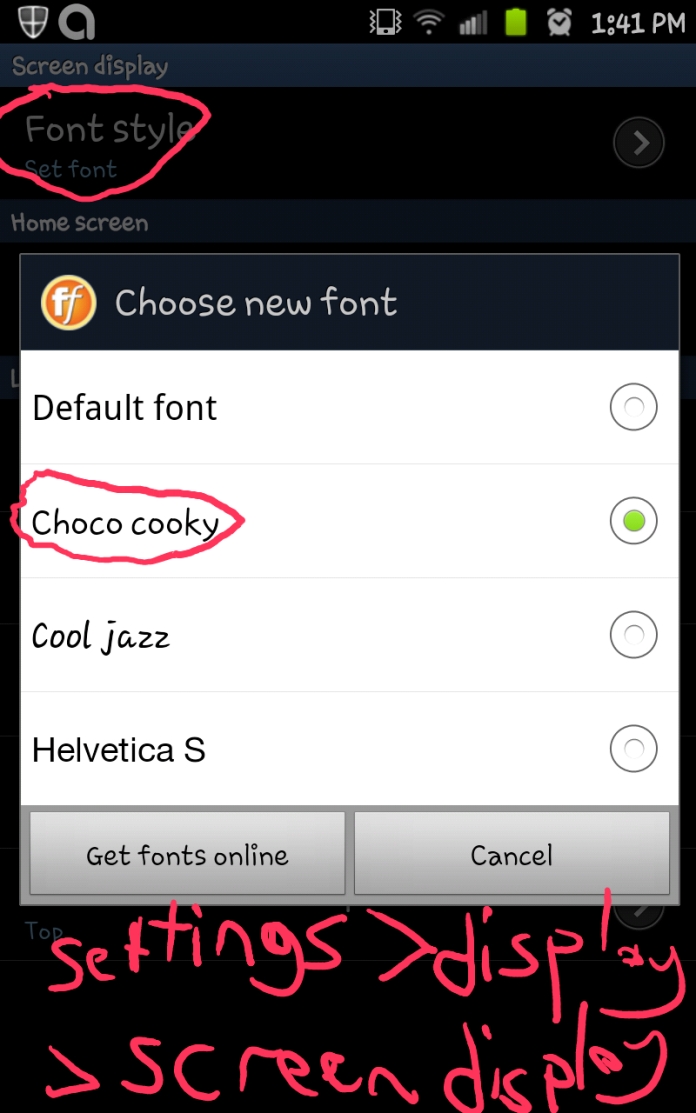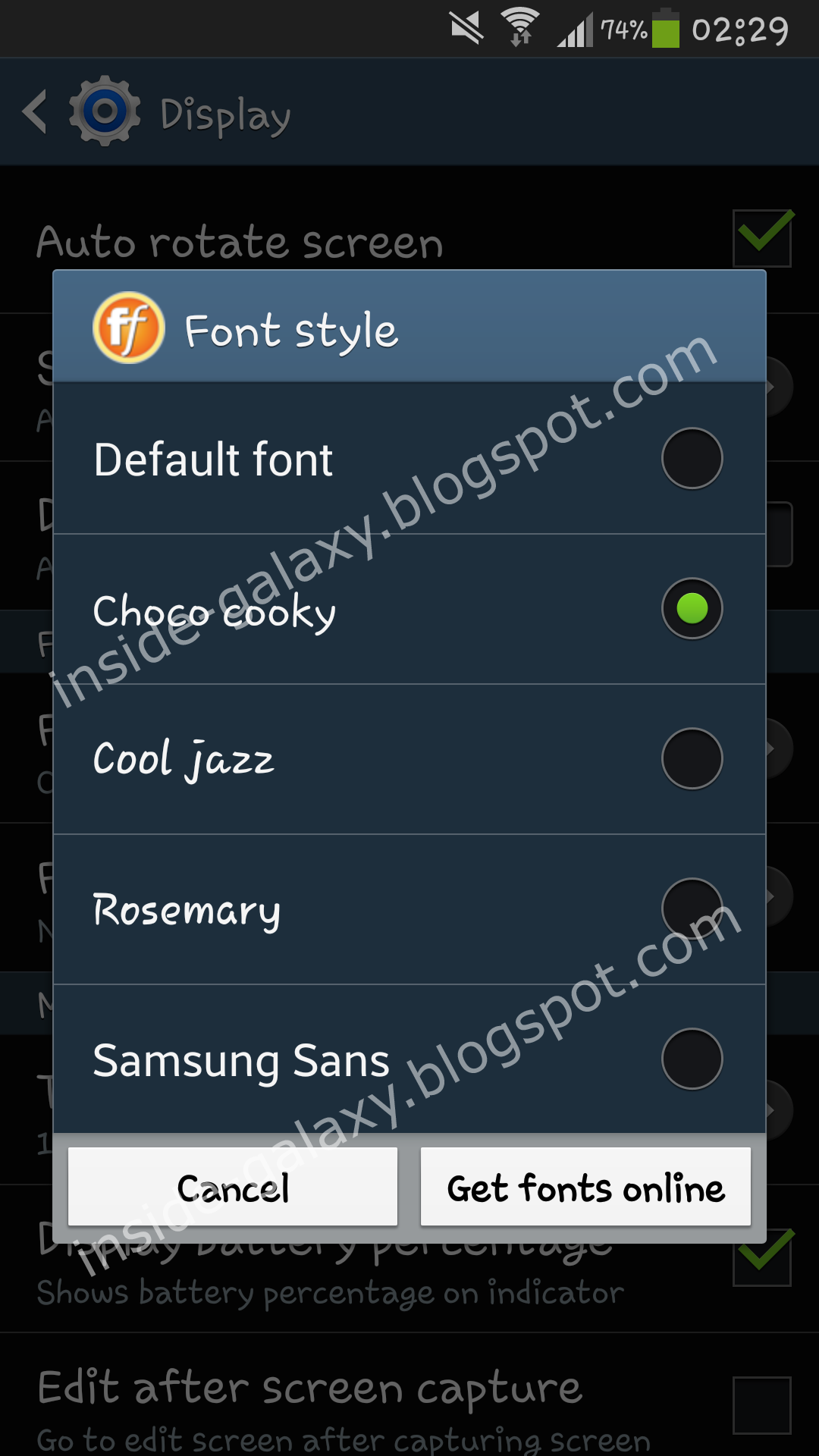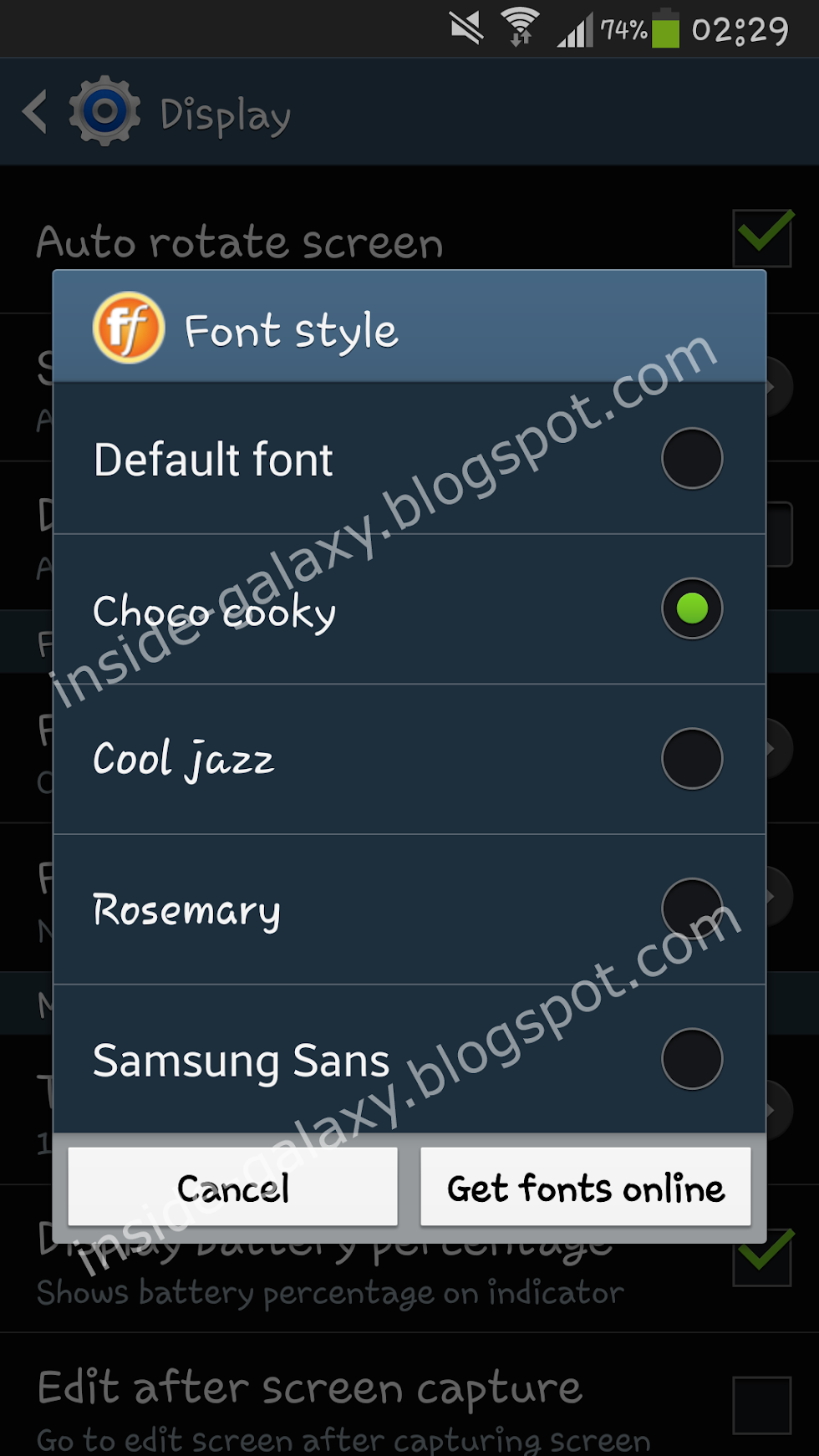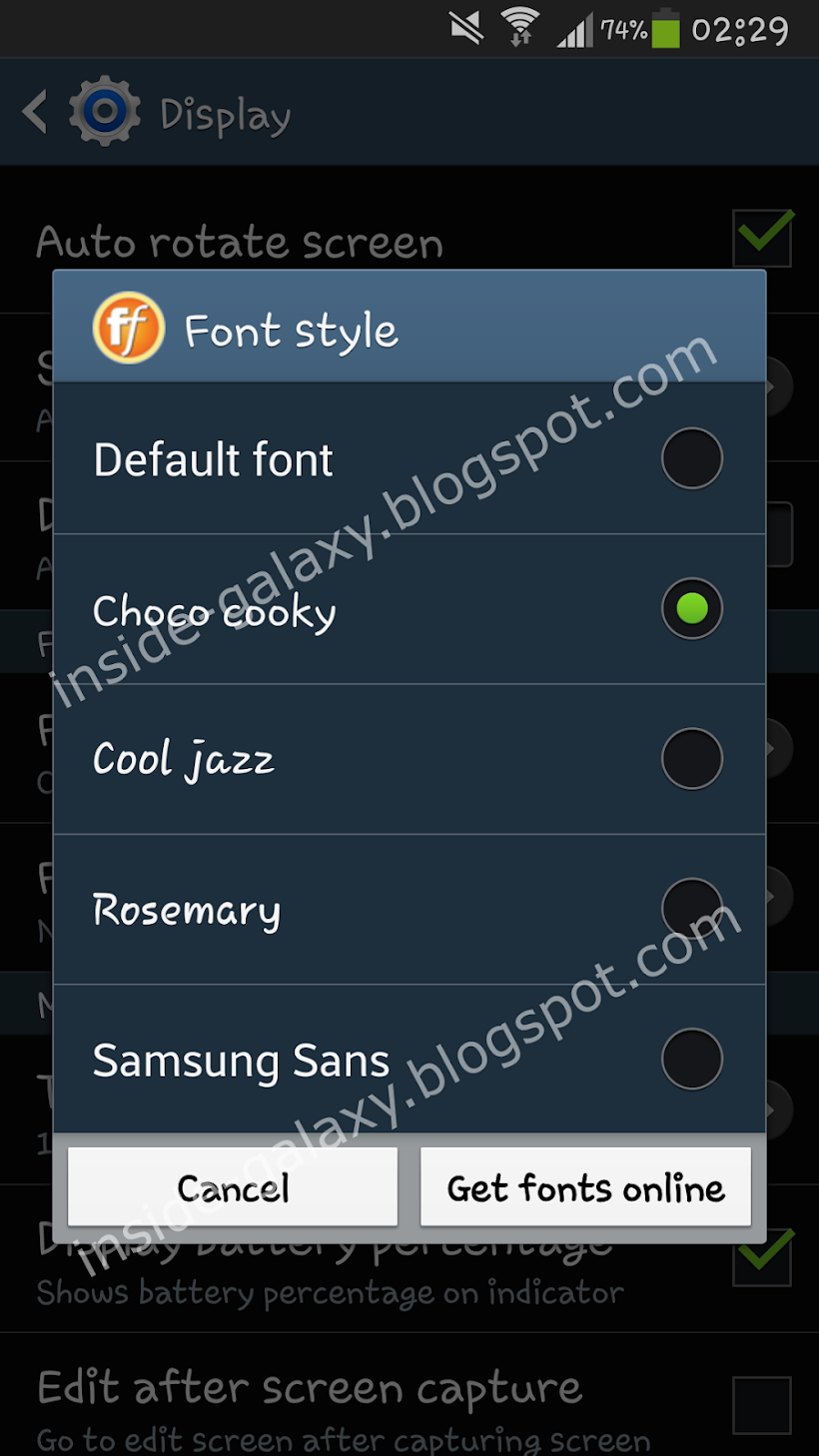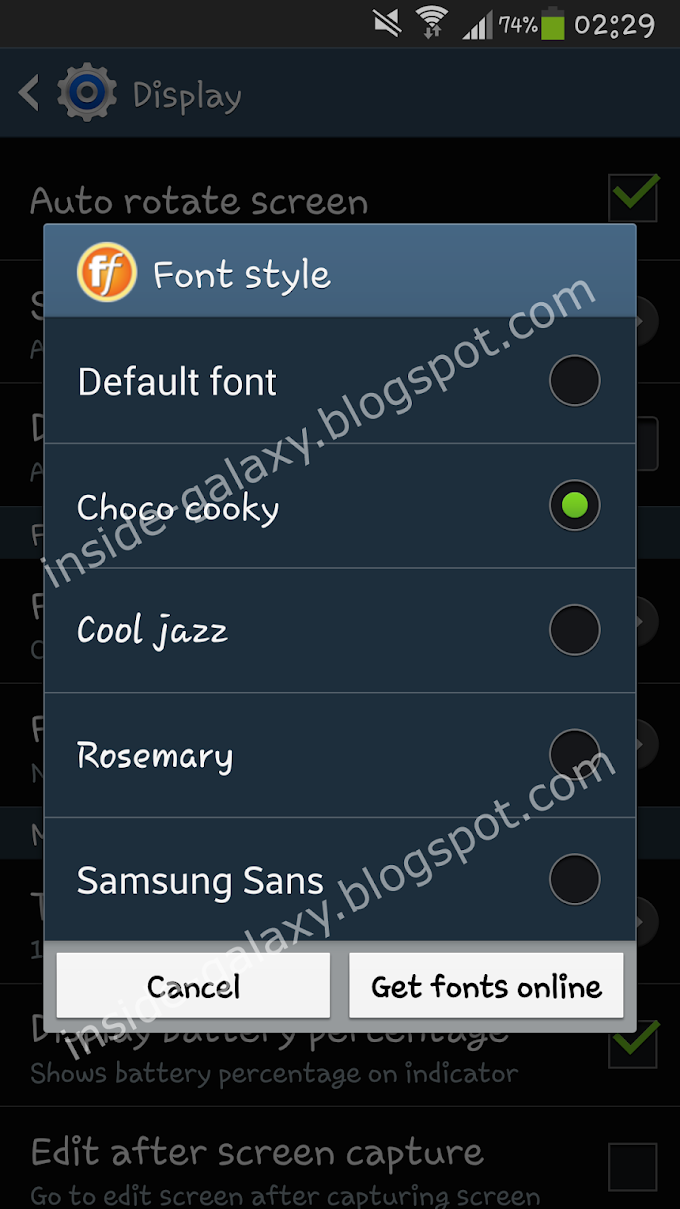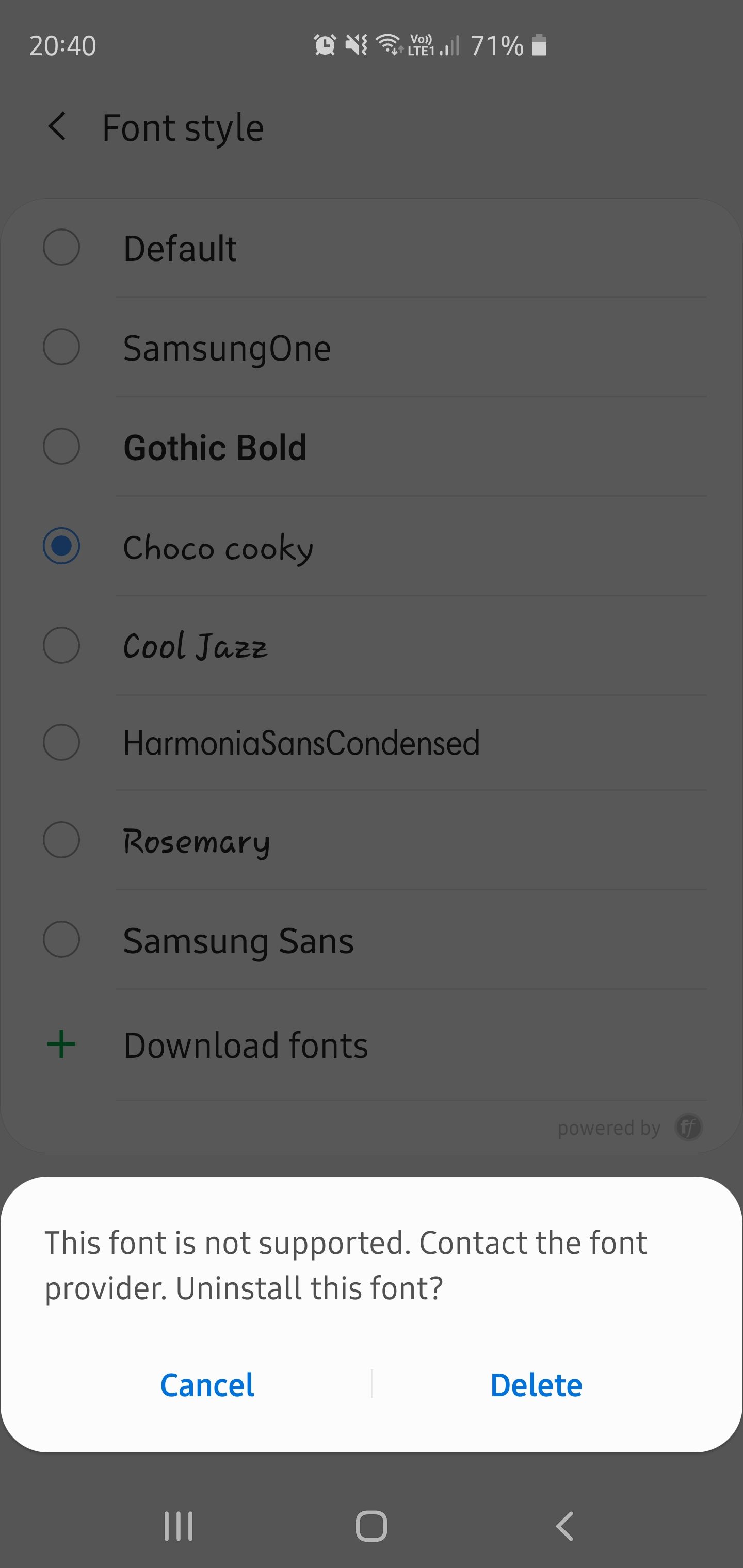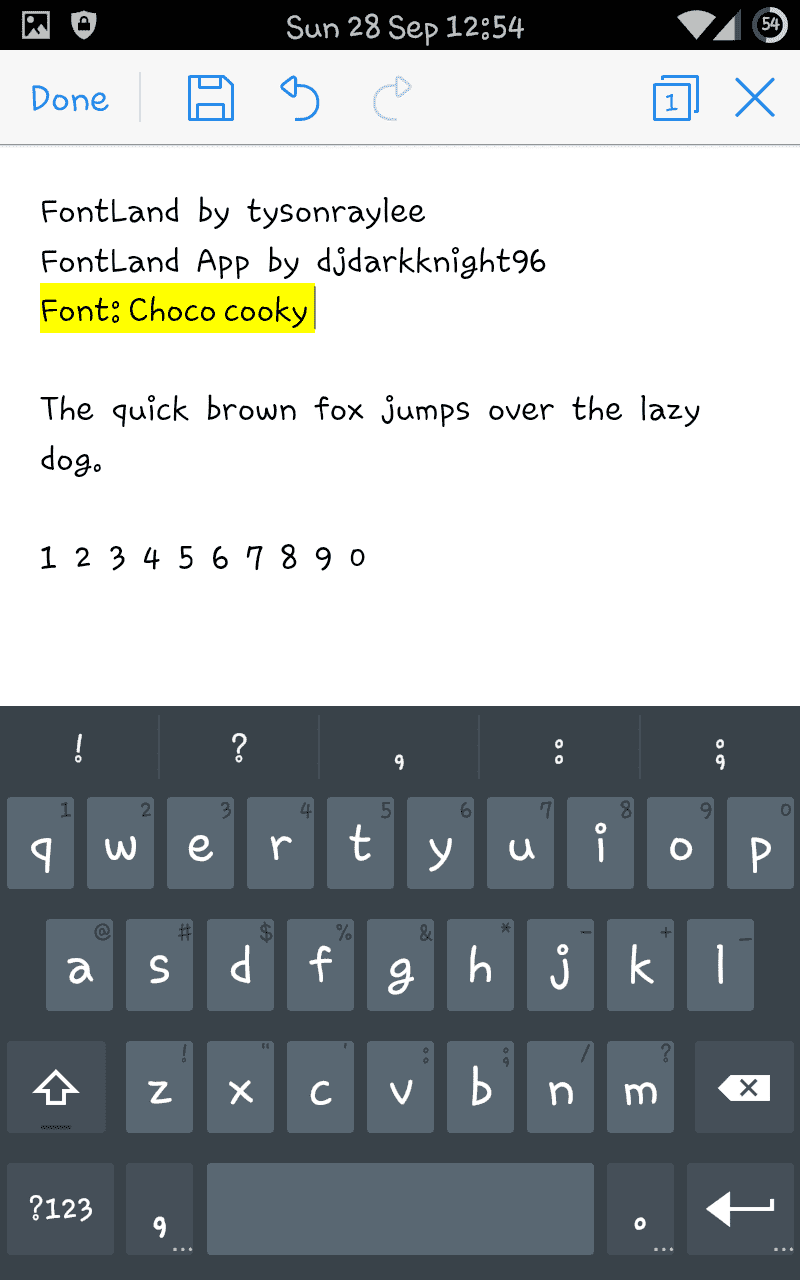
Choco Cooky Font Apk Android - Cabefirae
Choco cooky font apk. Free fonts often have not all characters and signs, and have no kerning pairs (avenue ↔ a venue, tea ↔ t ea). Download more than 10,000 free fonts hassle free, desktop and mobile optimized, around for more than 20 years. Even though many mobile manufacturers are adding choco cooky fonts in their mobiles, it is first in use with samsung.
Choco cooky font apk free download for android phones. Free fonts often have not all characters and signs, and have no kerning pairs (avenue ↔ a venue, tea ↔ t ea). Categories, popular, designers, optional web font download and links to similar fonts.
Choco letter font dafont com. How to change fonts for android. How add more fonts on galaxy s5.
Choco cooky font apk full control over. 26 professional choco cooky fonts to download. It’s the perfect font for turning any crafting idea into a true standout.
Choco cooky is a typeface that soft, unique and very cute. Choco cooky (.ttf) font to download click here download choco cooky (2 mb) ctto don't forget to join, like and visit my facebook group and page facebook group: Tags choco cooky apk việt hóa choco cooky font download for android choco cooky font for galaxy y choco cooky font viet hoa chococooky apk cho glx y chococooky font apk download font gabrielle cho android download font gabrielle cho galaxy y font ch amp 7919 chococooky galaxy y font choco cockie vi amp 7879 t ho?
Hey guys, im the one that came up with the method for editing the font apks. Is there a way that i can download a bigger size for my phone? 4 go to themes icon in home.
7/10 you can extract the apk file and go into the res folder to find your font, very likely in ttf. Choco cooky font apk for android. Rename .zip to .apk and install like other app.
Just drop it below, fill in any details you know, and we'll do the rest! Onlinewebfonts.com is internet most popular font online download website,offers more than 8,000,000 desktop and web font products for you to preview and download. Whatsapp uses the internet's internet connection (4g / 3g.
Tags download choco cooky font in apk format for free. Font choco cooky unicode mtz and symbol. 470 search results for choco cooky download.